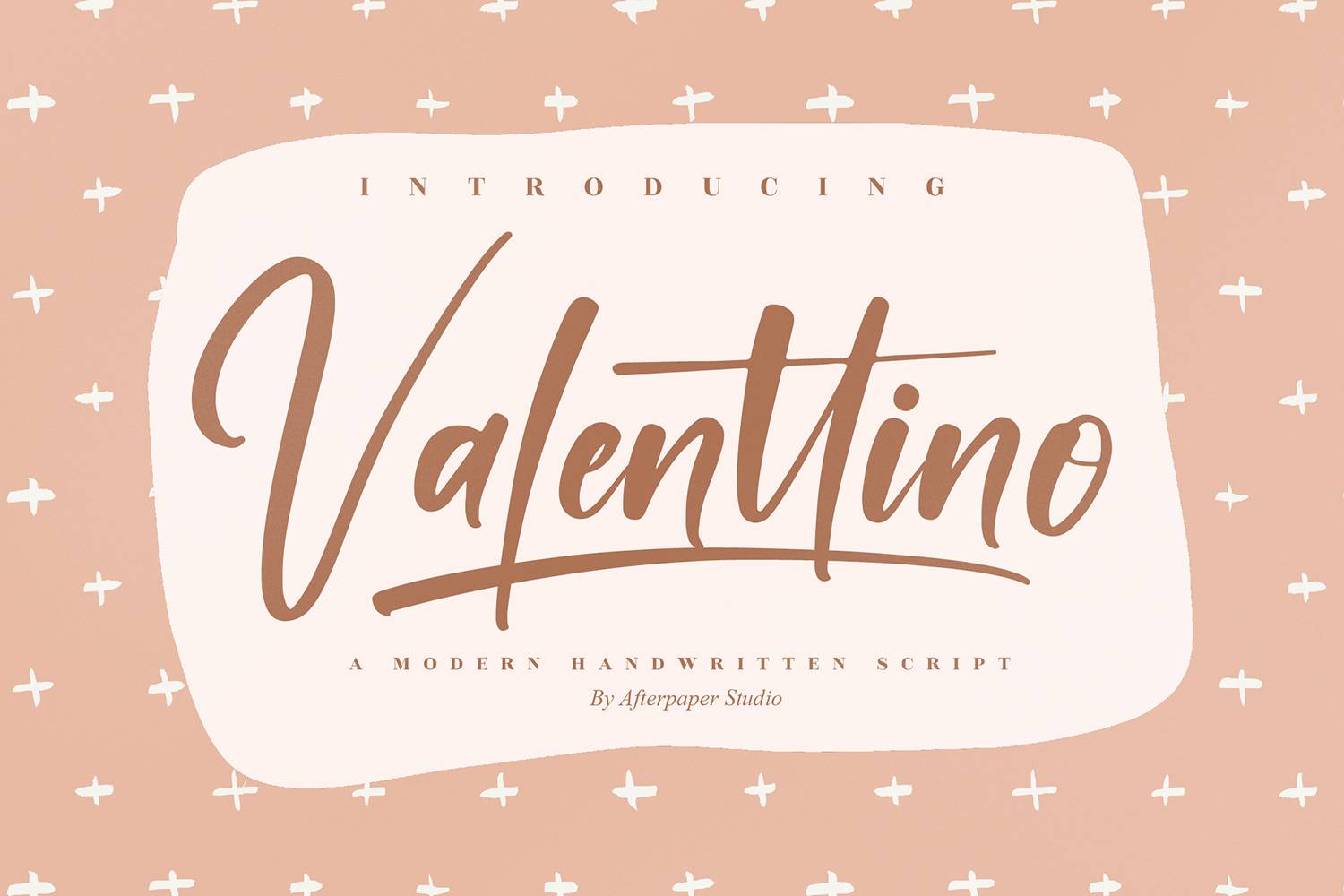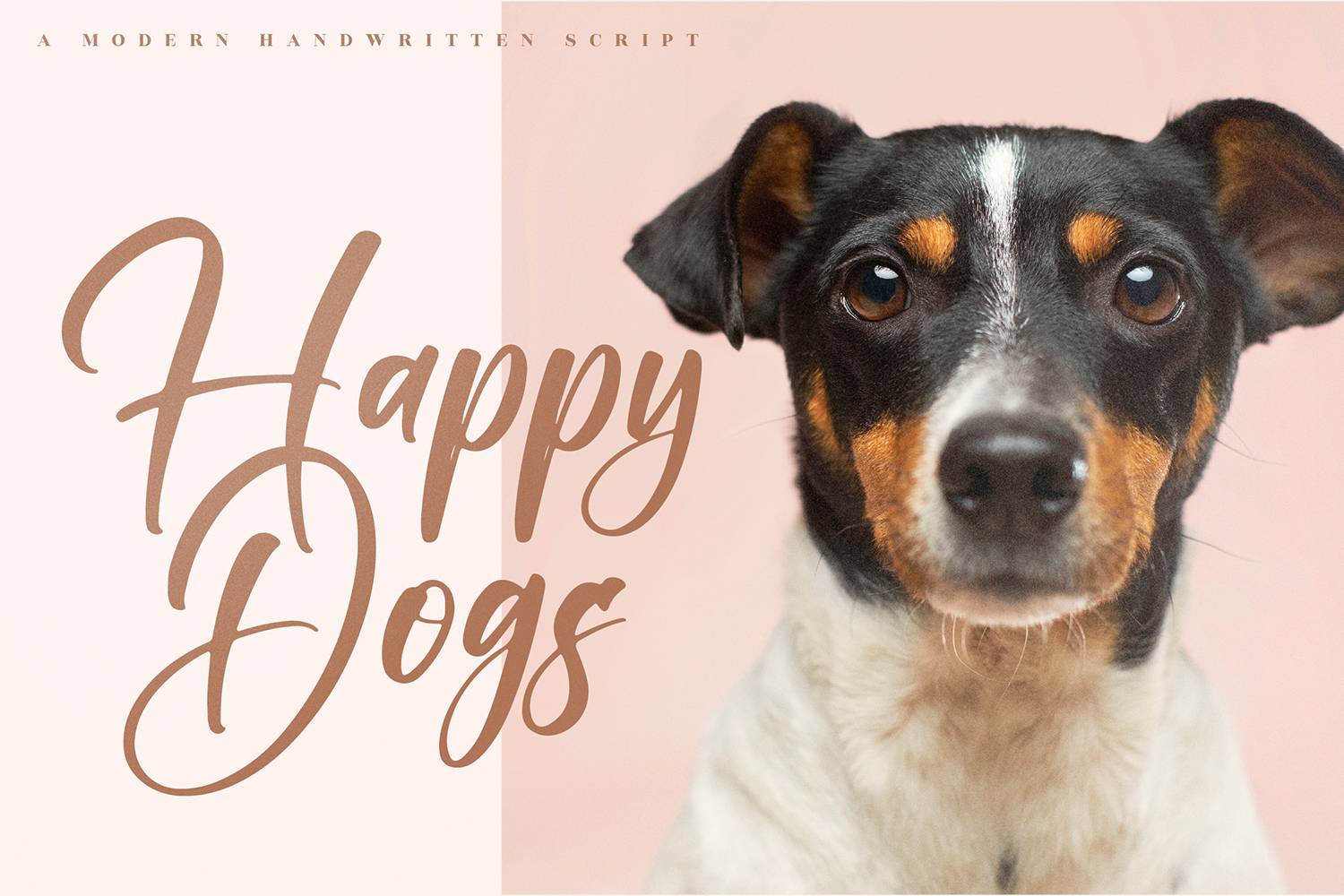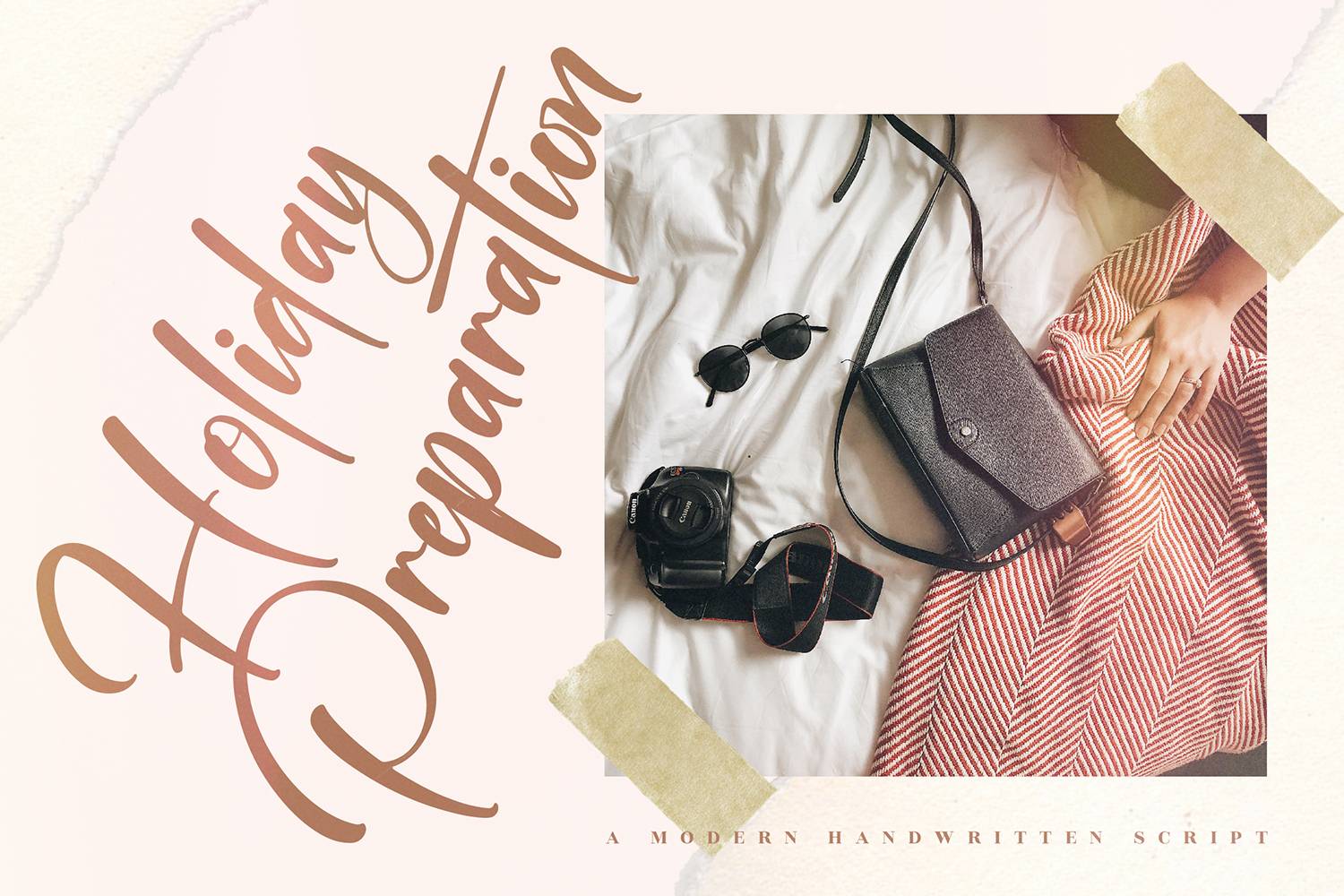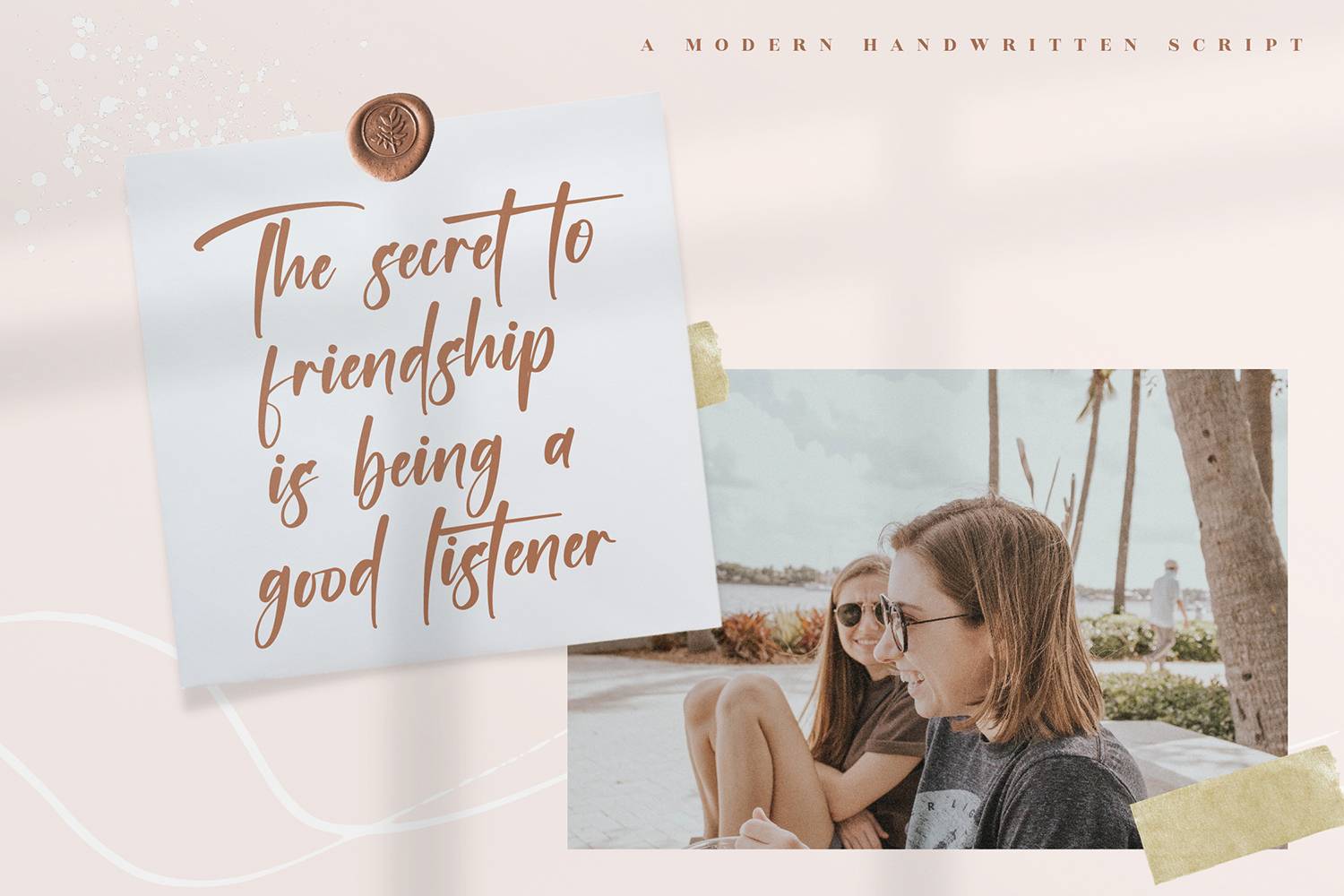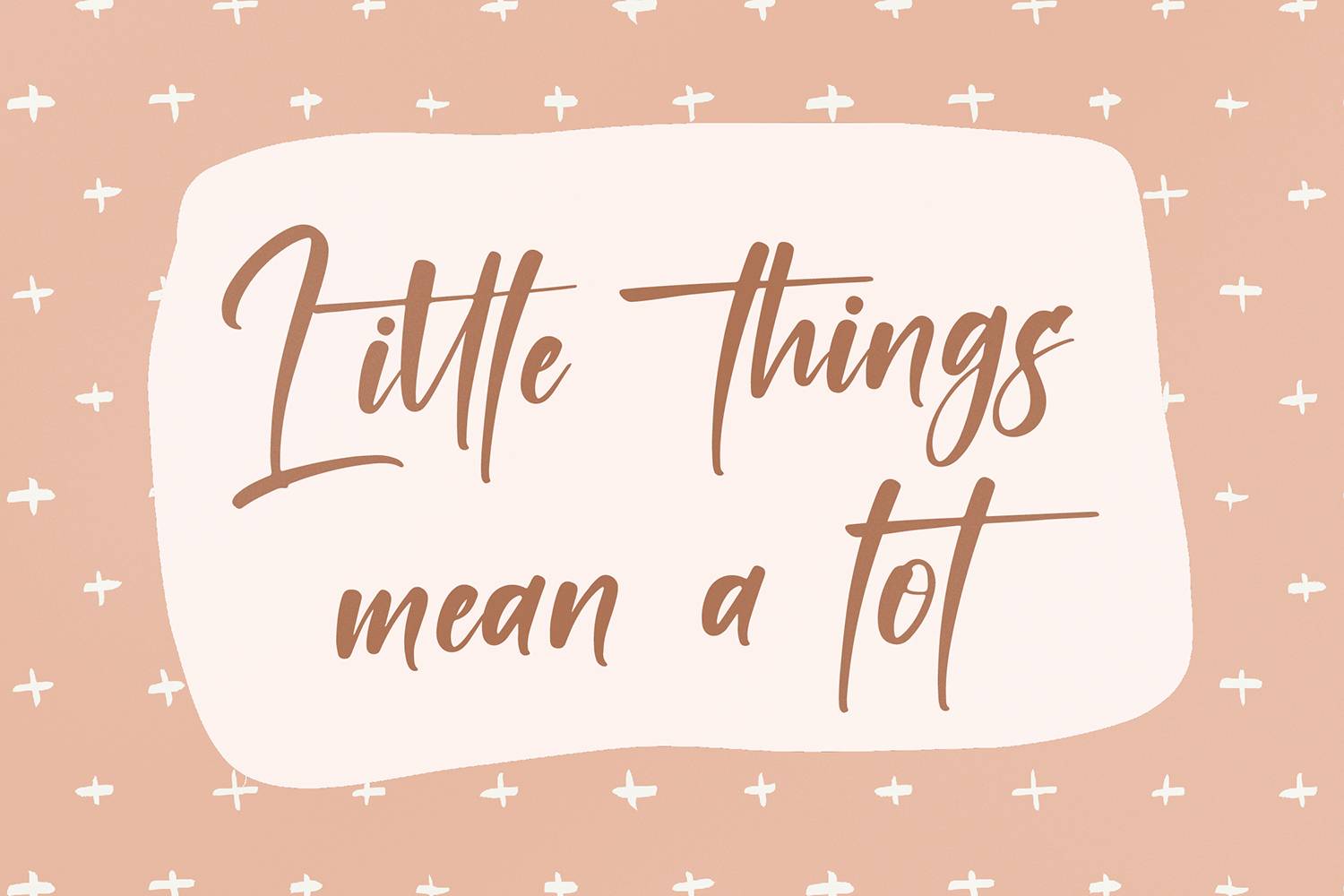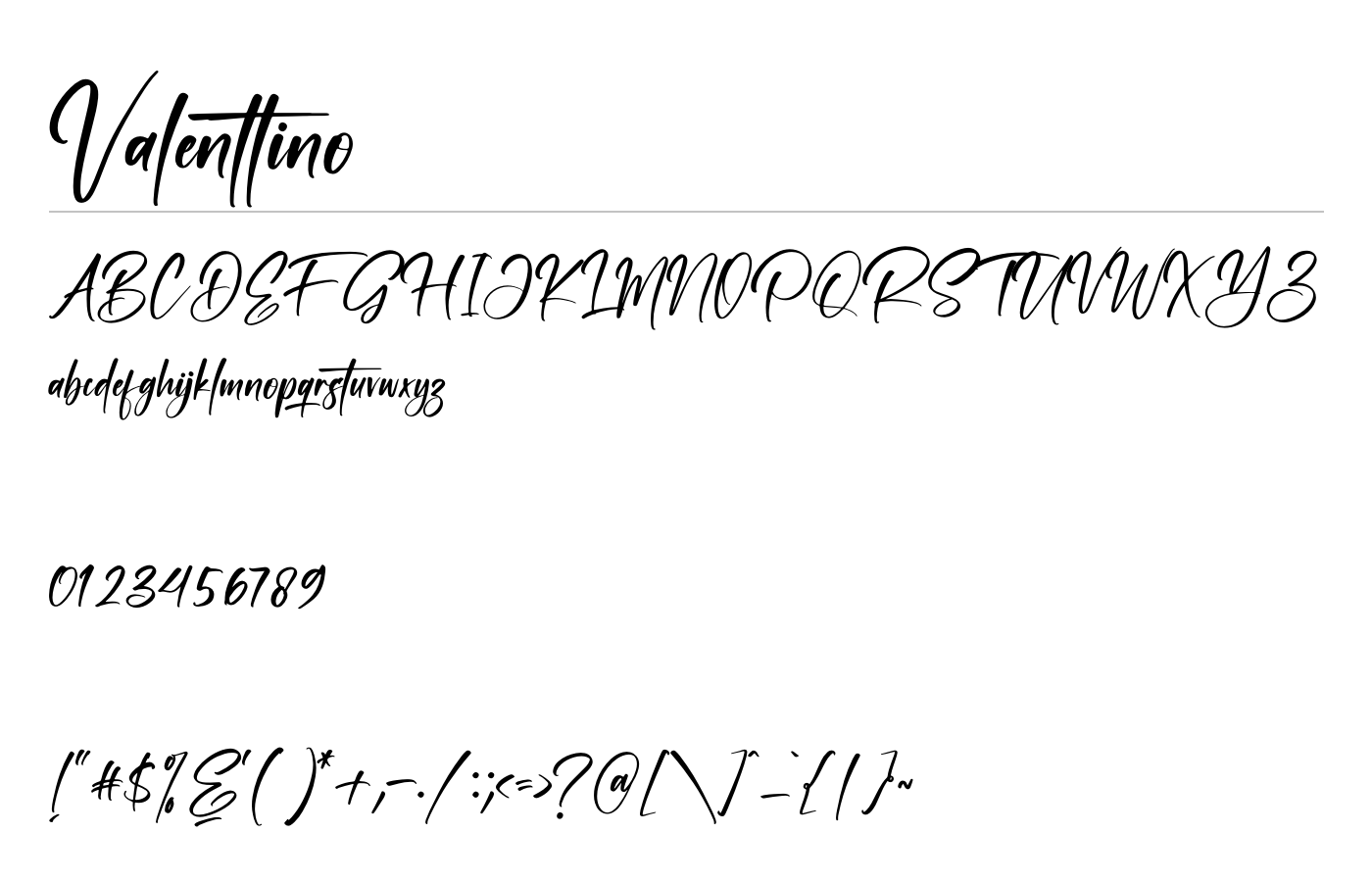
Valenttino is an elegant and flowing script font that combines a modern, handwritten style with a refined touch. Its smooth, varied strokes and slightly condensed letterforms give it a graceful and sophisticated feel, making it perfect for branding, invitations, and stylish editorial design where a personal yet polished look is desired. This font works beautifully in contexts that need a delicate, expressive flair without compromising legibility.
Valenttino Font
About Valenttino Font